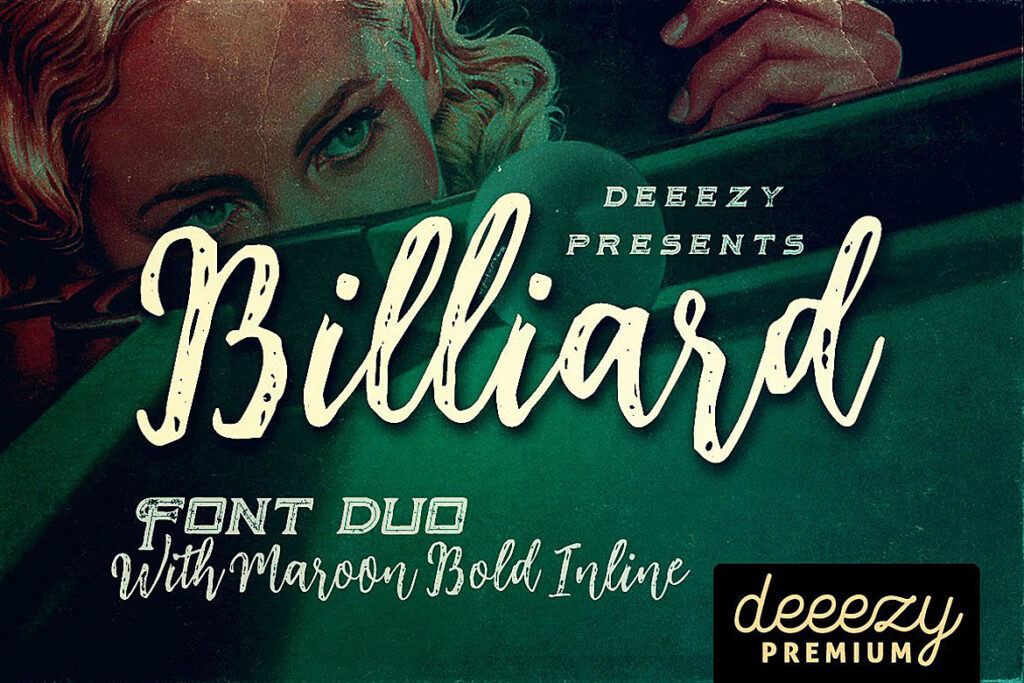
Billiard Font Duo: Elevate Your Projects with a Cool Retro or Vintage Style
In the world of typography, a font duo can make or break the aesthetic of a project. If you’re on the hunt for a cool retro or vintage style font duo that can add a touch of uniqueness to your work, look no further than the Billiard Font Duo. This fantastic pair of fonts is designed to bring a nostalgic feel to your designs while offering versatility and style. In this article, we will dive deep into the features and benefits of the Billiard Font Duo, exploring how it can elevate your new projects.
An Overview of the Billiard Font Duo
The Billiard Font Duo consists of two distinct fonts, each offering its own unique characteristics and uses. The first font is a hand-drawn, unique style brush script font, while the second is a bold inline display font available in regular and grunge versions.
Hand-Drawn & Unique Style Brush Script Font
The first font in the duo is a meticulously crafted, hand-drawn brush script font. Its unique style sets it apart from more conventional fonts, offering a personal touch that can make your projects stand out. This font comes with several features that make it highly versatile:
- Multi-Language Support: Catering to a global audience, this font supports multiple languages, making it an excellent choice for projects that require a broad linguistic range.
- Stylistic Alternates: The font includes a variety of stylistic alternates, allowing for greater flexibility in design. These alternates can be used to create a more dynamic and engaging text.
- Swash Font: Adding an extra touch of elegance, the swash font can be used to enhance the beginning and end of words, or even as standalone design elements.
This hand-drawn brush script font is perfect for a variety of applications, from branding and packaging to advertising and digital media. Its unique, personal feel can add warmth and character to your designs.
Bold Inline Display Font
The second font in the Billiard Font Duo is a bold inline display font, designed to make a statement. It comes in two versions:
- Regular Version: The regular version of the bold inline display font offers a clean and crisp look, ideal for headlines, titles, and any place you want to draw attention.
- Grunge Version: For those looking to add a bit of texture and grit to their designs, the grunge version provides a worn, aged effect that can add depth and interest.
While this font does not offer multi-language support, its bold and eye-catching design makes it perfect for use in posters, billboards, digital banners, and any project where you want to ensure your message stands out.
Uses and Applications of the Billiard Font Duo
The versatility of the Billiard Font Duo makes it suitable for a wide range of projects and applications. Here are a few ideas to get you started:
- Branding and Identity: Use the hand-drawn brush script font for logos, business cards, and letterheads to create a friendly and approachable brand image.
- Advertising and Marketing: The bold inline display font, especially in its grunge version, can add a compelling edge to your ad campaigns and promotional materials.
- Packaging: The duo can be used on product packaging to give your products a unique and eye-catching look.
- Digital Media: From website headers to social media graphics, these fonts can help ensure your online presence is both stylish and coherent.
Tips for Using the Billiard Font Duo
To get the most out of the Billiard Font Duo, consider the following tips:
- Mix and Match: Don’t be afraid to use both fonts in the same project. The contrast between the elegant brush script and the bold inline font can create visually appealing hierarchies.
- Play with Colors: Experiment with different colors to find the perfect match for your brand or project’s aesthetic.
- Utilize Swashes and Alternates: Take advantage of the swashes and stylistic alternates in the brush script font to add a personal touch to your text.
The Billiard Font Duo offers a refreshing combination of styles that can bring a cool retro or vintage vibe to your projects. Whether you’re working on branding, advertising, packaging, or digital media, this font duo provides the versatility and style needed to make your work stand out. With its hand-drawn brush script font and bold inline display font, you’ll have the perfect tools to create unique, engaging, and memorable designs.
Elevate Your Designs with Billiard Font Duo
Incorporating the Billiard Font Duo into your projects is a surefire way to elevate your designs and give them a distinctive edge. Its combination of uniqueness, versatility, and style makes it an invaluable asset for any designer looking to make an impact. So why wait? Dive into the world of Billiard Font Duo today and discover how it can transform your designs.